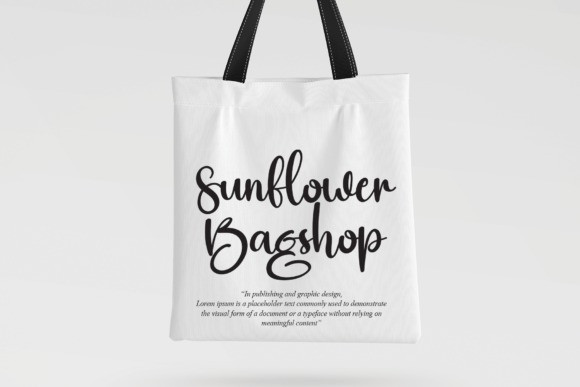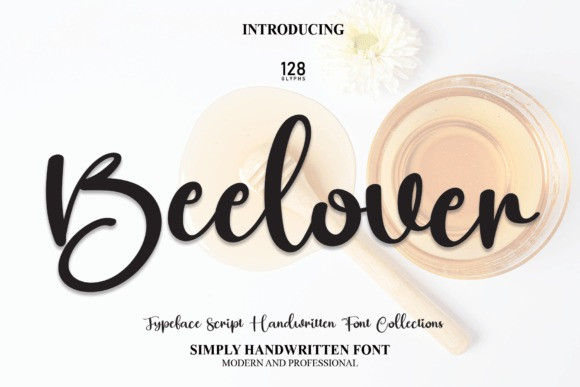
Beelover Script Font
Beelover Script Font is a stylish handwritten font with a contemporary atmosphere and impeccable form, inspired by timeless classic calligraphy. Balanced and varied, this font was designed to enhance the beauty of your projects.